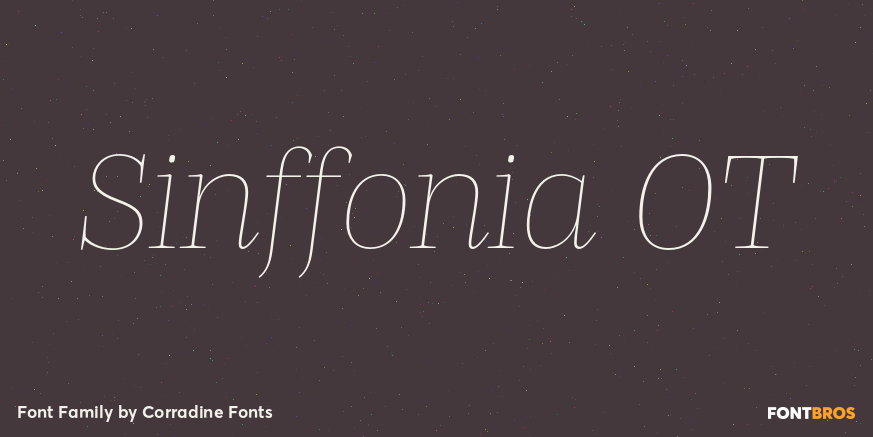
Sinffonia OT
About Sinffonia OT
Sinffonia is a very sophisticated font family plenty of ligatures, alternative Characters and ornamental characters. Its thin weight and roman style makes very elegant and ideal for any high quality project. The Open Type version is carefully programmed…